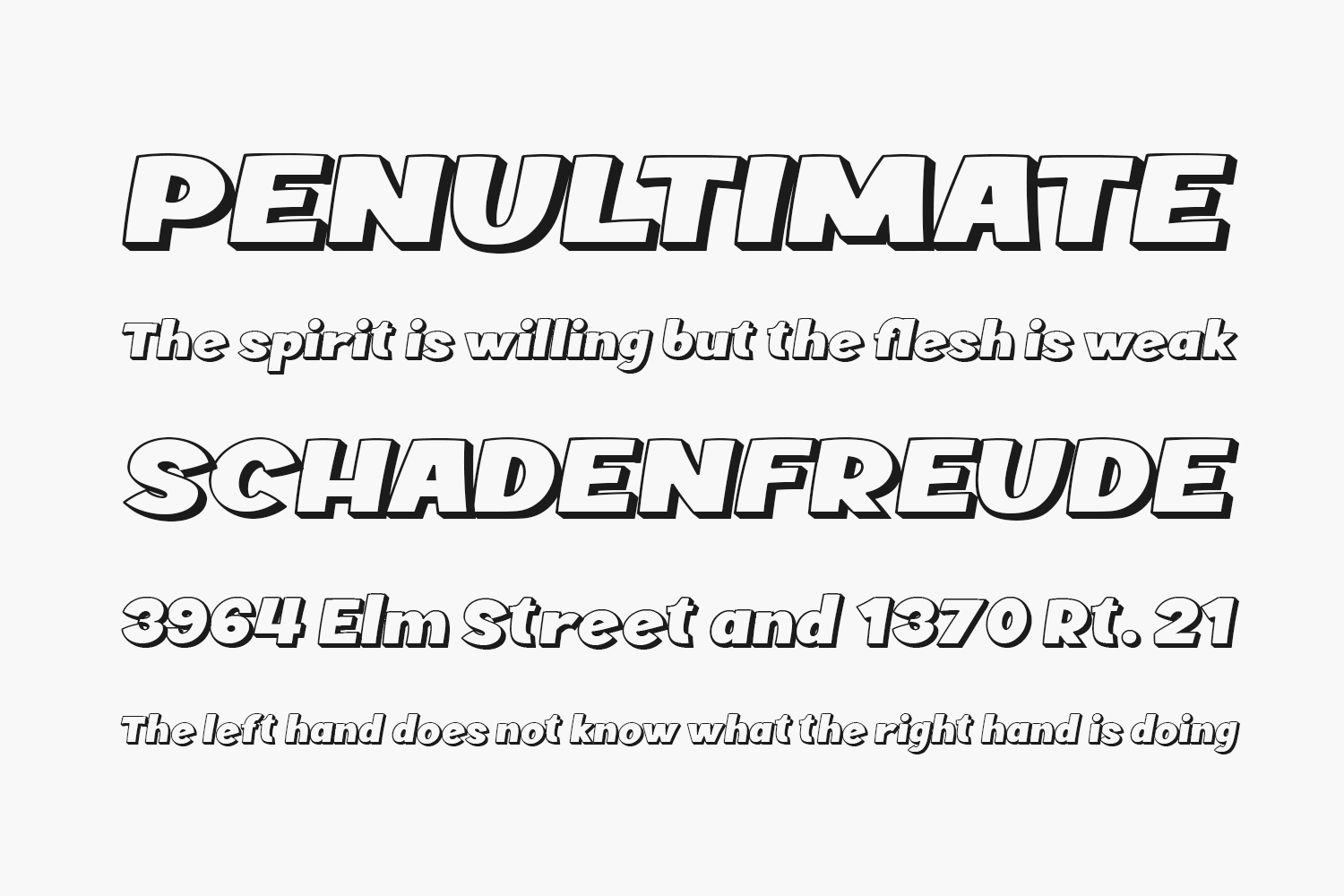
Chopic Free Font is a lively, playful, and daring comic display font that boasts a distinctive style. Let its one-of-a-kind charm inspire you, transforming any design project into an absolute standout! Embrace the fun and boldness of Chopic for a truly unique creative expression. Download the font for free if you need it for personal use or purchase the full version for commercial use.